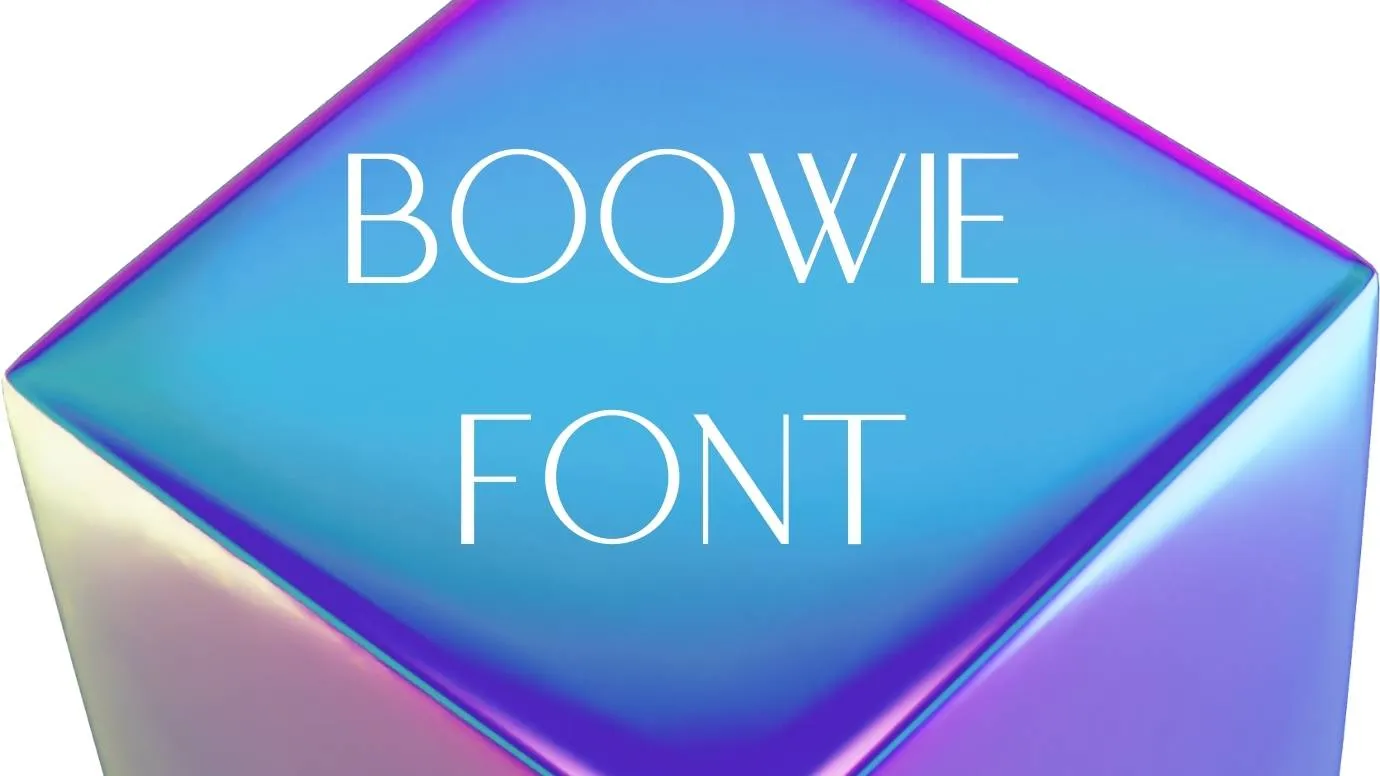
Boowie Sans Serif Font has large x-hight narrow lines and it belongs to the sans-serif category in the font family. This typeface was designed and published by Typeline Studio. It is available in the premium version and you get it from the Creative Market.
This typeface has more than 235 stylish and attractive sans-serif characters, including uppercase, lowercase, punctuation, currency symbols, and some special letters. This attractive font consists of eye-catching and unique glyphs that are perfect for new designs.
Boowie Sans Serif Font